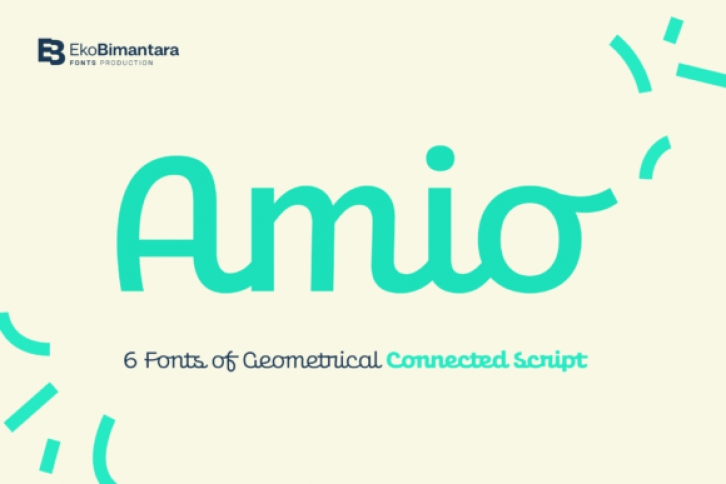
Amio is fun, geometrical script font family. Not too thin and not too thick, balanced and varied, this font was designed to enhance the beauty of your projects.